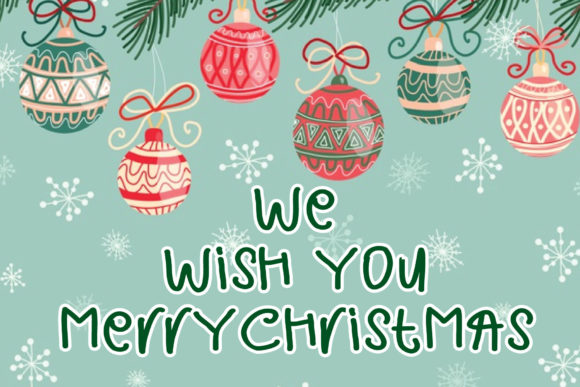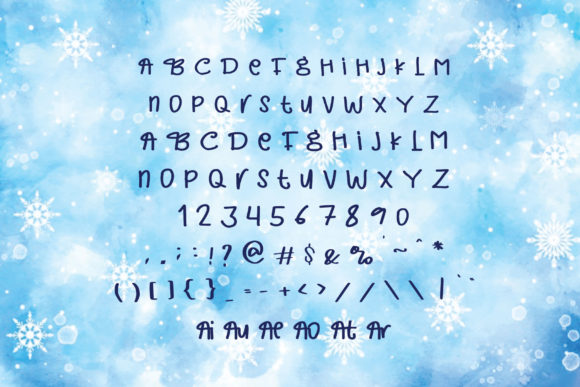
Dear Santa Claus Font: A Sweet and Friendly Handwritten Font for Your Holiday Creations
The holiday season is upon us, and what better way to get into the spirit than with a festive and fun font? Look no further than the Dear Santa Claus font, a sweet and friendly handwritten font that’s perfect for adding a touch of innocence and whimsy to your creations. In this article, we’ll take a closer look at this charming font and explore its many uses for designers and crafters.
What is Dear Santa Claus Font?
Dear Santa Claus is a sweet and friendly handwritten font that’s designed to look like the handwriting of a child. With its playful and carefree vibe, this font is perfect for creating holiday-themed projects that require a personal and nostalgic touch. Whether you’re designing a Christmas card, a holiday gift tag, or a festive poster, Dear Santa Claus font is sure to add a touch of magic to your creations.
Characteristics of Dear Santa Claus Font
So, what makes Dear Santa Claus font so special? Here are a few of its key characteristics:
- Handwritten style: Dear Santa Claus font has a distinctly handwritten feel, with irregular letterforms and a playful, childlike quality.
- Childlike innocence: The font’s design is meant to evoke the handwriting of a child, making it perfect for creating projects that require a touch of innocence and naivety.
- Festive and fun: With its bright and cheerful vibe, Dear Santa Claus font is perfect for holiday-themed projects.
Uses for Dear Santa Claus Font
So, what can you use Dear Santa Claus font for? The possibilities are endless! Here are a few ideas to get you started:
- Holiday cards and invitations: Use Dear Santa Claus font to create festive and fun holiday cards and invitations that are sure to delight your friends and family.
- Gift tags and wrapping paper: Add a personal touch to your holiday gifts with Dear Santa Claus font, perfect for creating custom gift tags and wrapping paper.
- Social media graphics: Use Dear Santa Claus font to create festive and engaging social media graphics, perfect for sharing with your followers during the holiday season.
- Posters and flyers: Create eye-catching posters and flyers with Dear Santa Claus font, perfect for promoting holiday events and sales.
Tips for Using Dear Santa Claus Font
Here are a few tips for getting the most out of Dear Santa Claus font:
- Use it sparingly: While Dear Santa Claus font is perfect for adding a touch of whimsy to your creations, it can be overwhelming if used too much. Use it sparingly to add emphasis and interest to your designs.
- Pair it with other fonts: Dear Santa Claus font pairs well with other fonts, such as bold and modern fonts, to create a striking contrast.
- Experiment with colors: Don’t be afraid to experiment with different colors and textures to add depth and interest to your designs.
| Font Name | Dear Santa Claus Font |
| Author | goodigital |
Dear Santa Claus font is a sweet and friendly handwritten font that’s perfect for adding a touch of innocence and whimsy to your holiday creations. With its playful and carefree vibe, this font is sure to delight designers and crafters alike. Whether you’re creating holiday cards, gift tags, or social media graphics, Dear Santa Claus font is the perfect choice for adding a touch of magic to your designs.